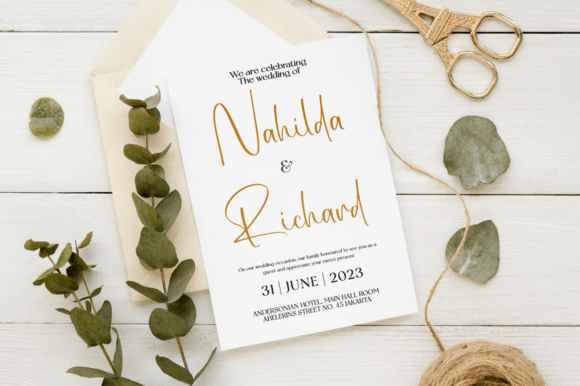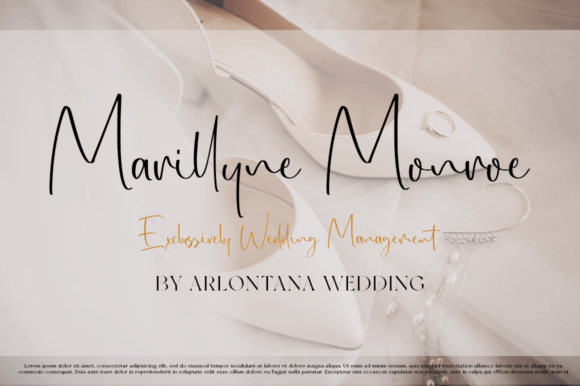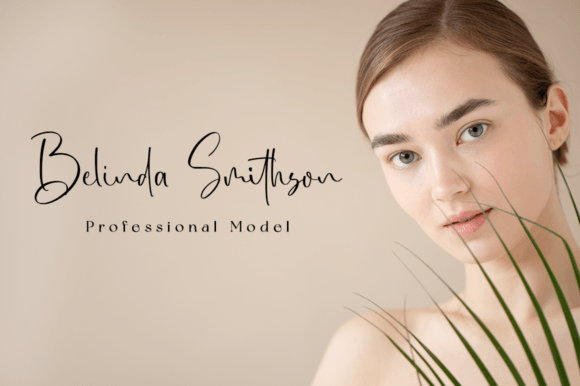
Introduction to Marionette Font
Marionette is an elegant handwritten font that feels both gorgeous and distinct.
It looks beautiful on wedding invitations, thank you cards, quotes, greeting cards, logos, business cards, and every other design which needs a customized touch This font is PUA encoded, which means you can access all of the glyphs and swashes with ease.
Key Features of Marionette Font
Why Choose Marionette Font?
Marionette Font offers exceptional quality and versatility, making it a valuable addition to your design toolkit. Whether you’re creating for personal projects or commercial use, Marionette Font delivers professional results.